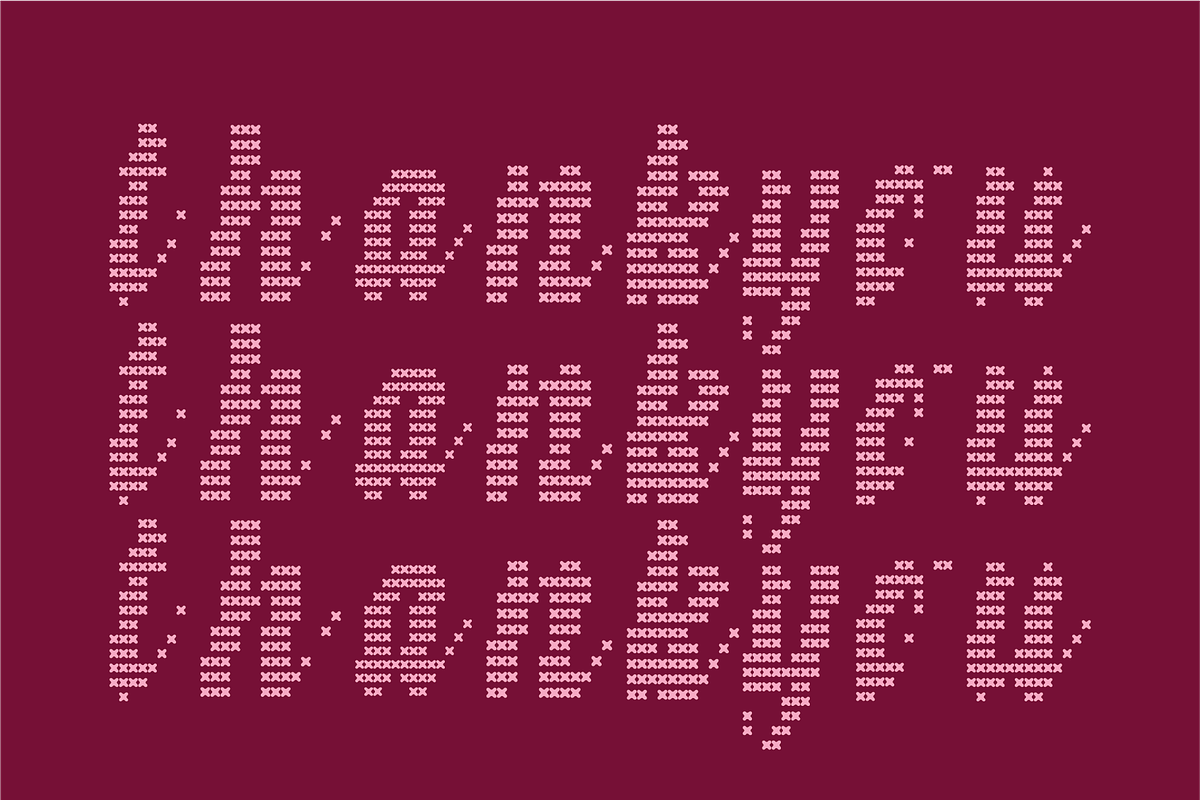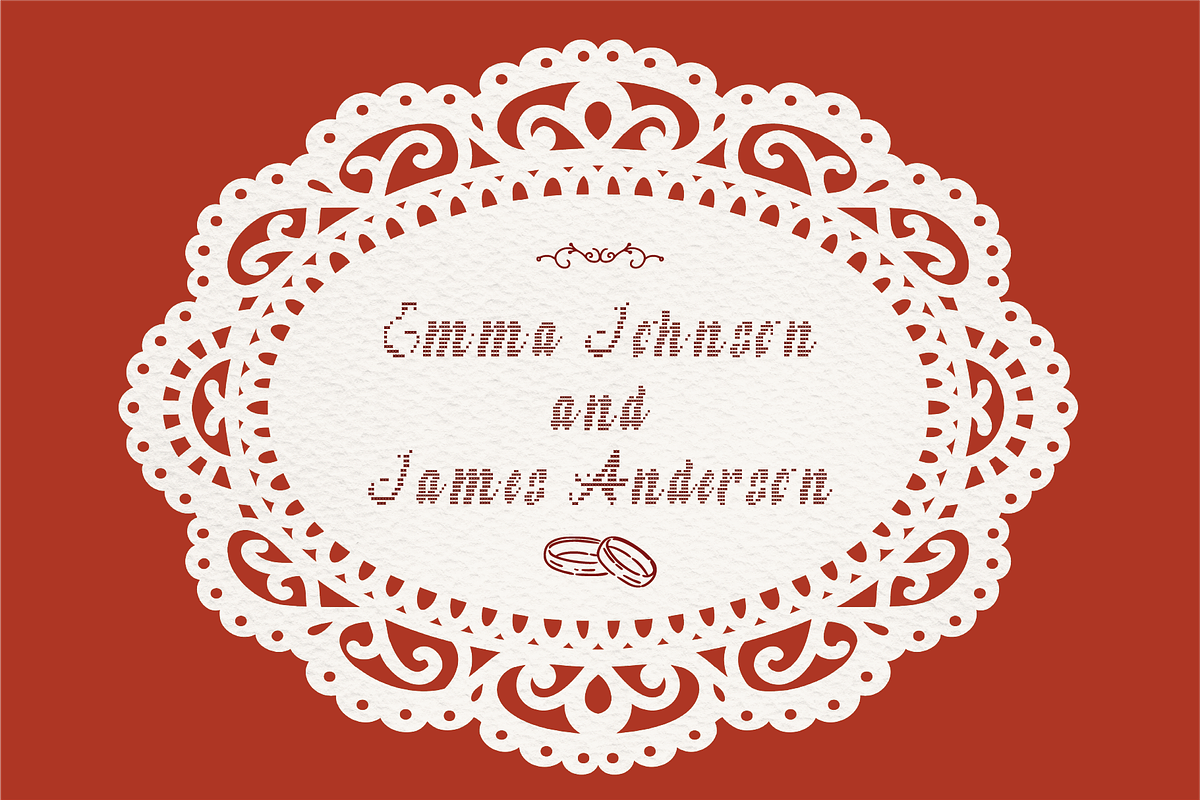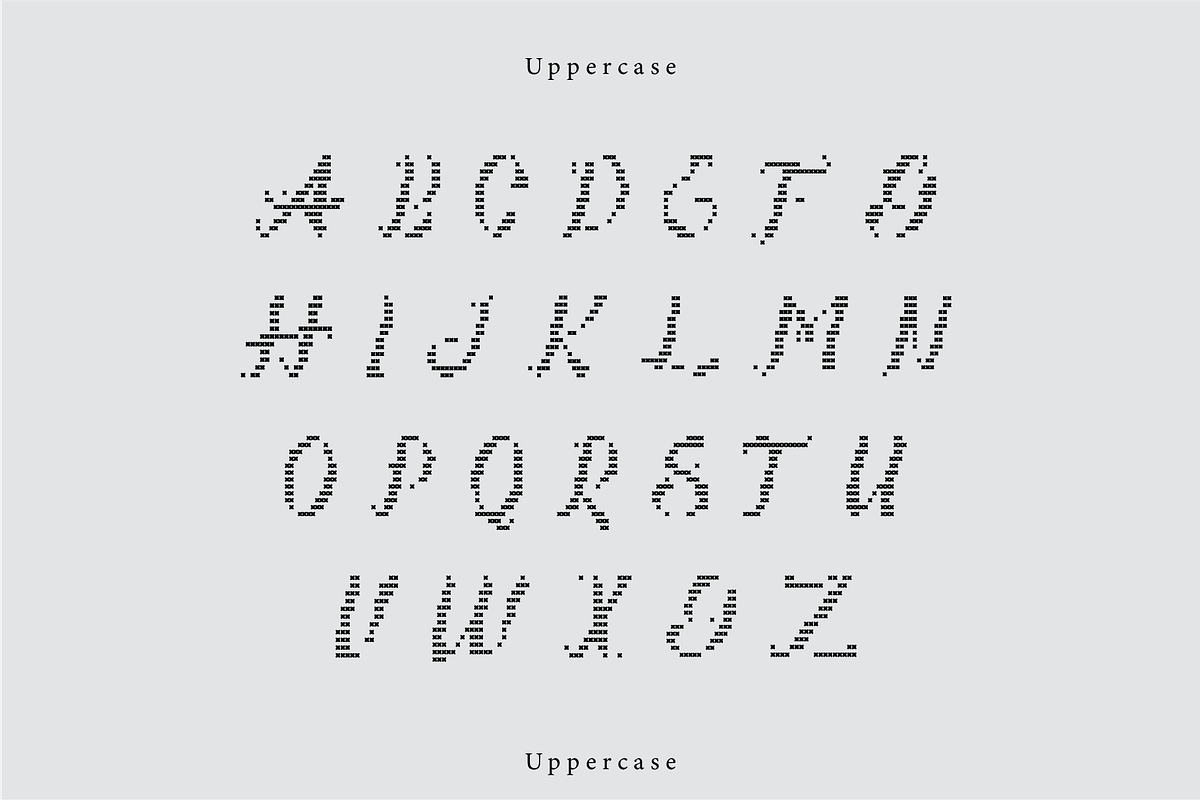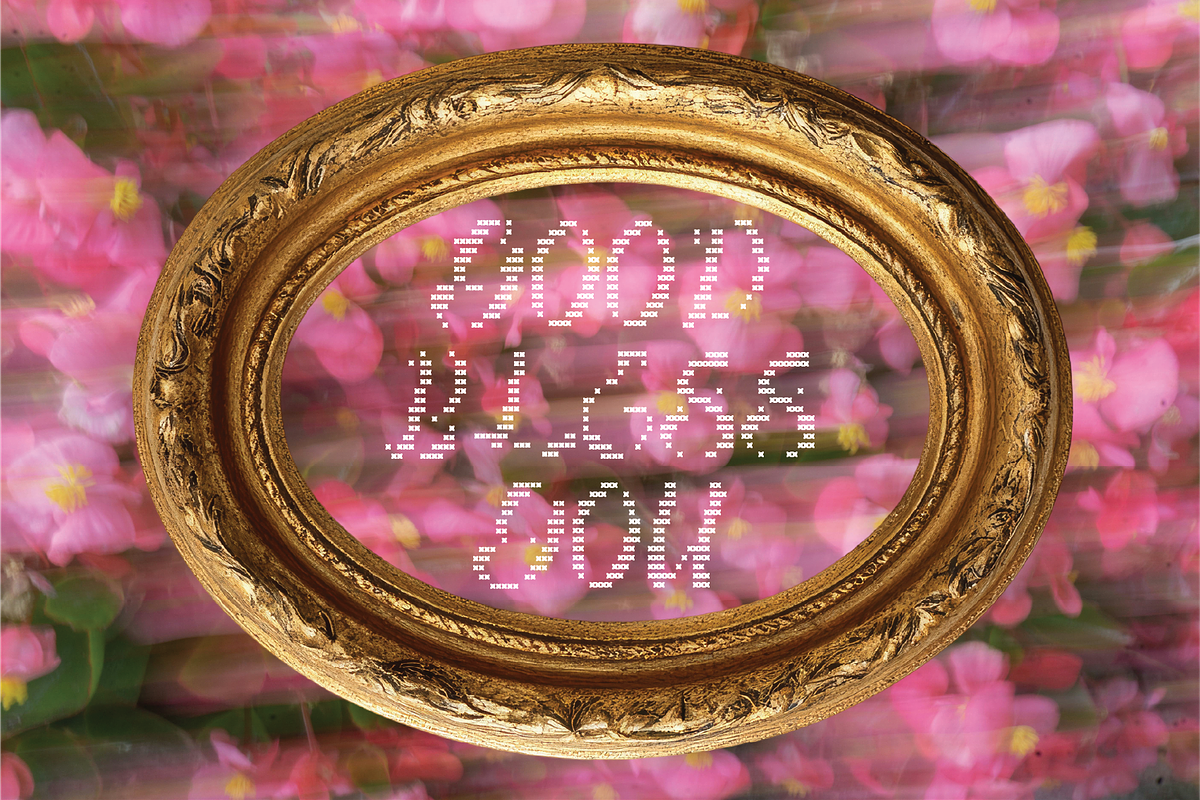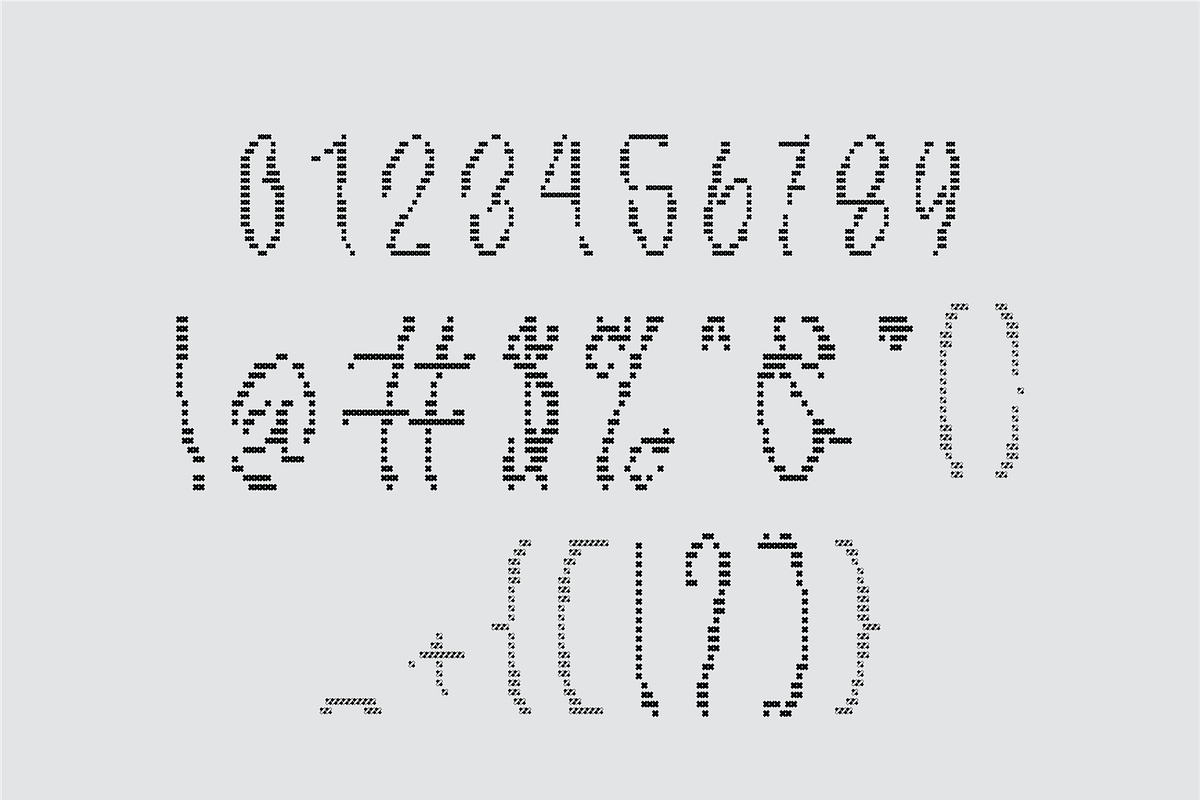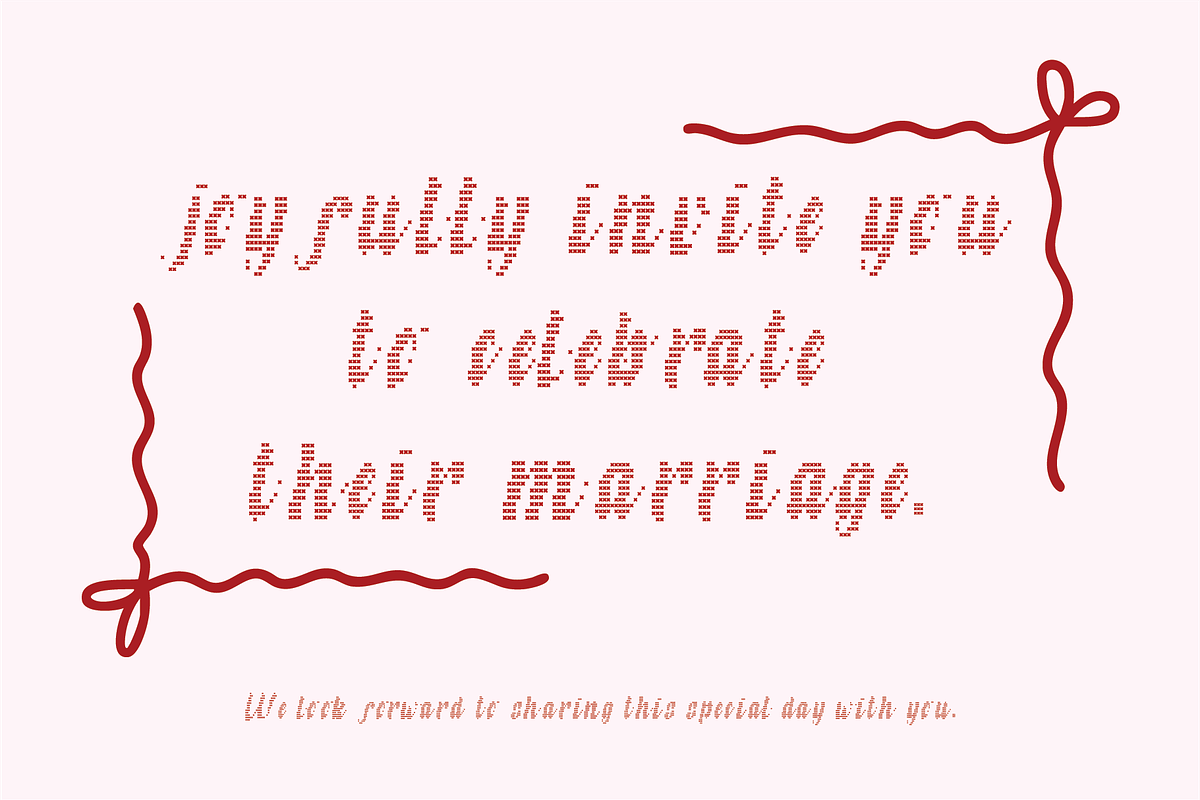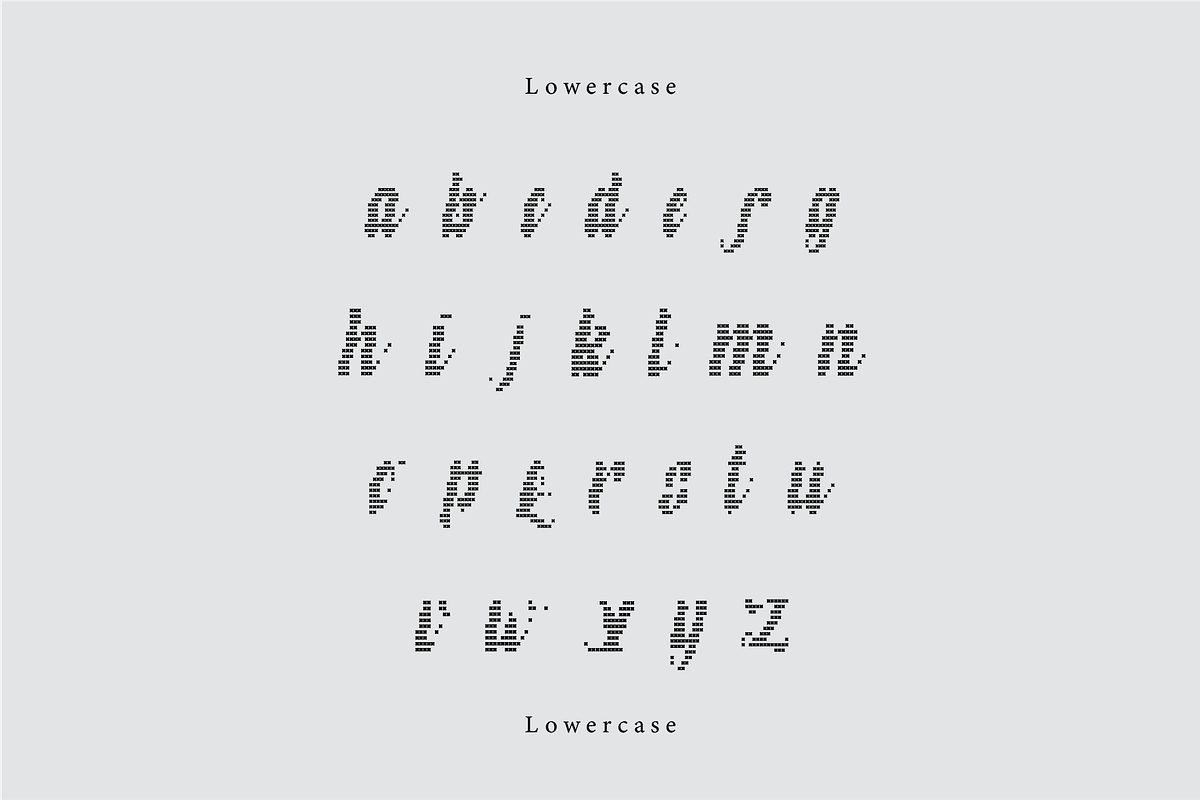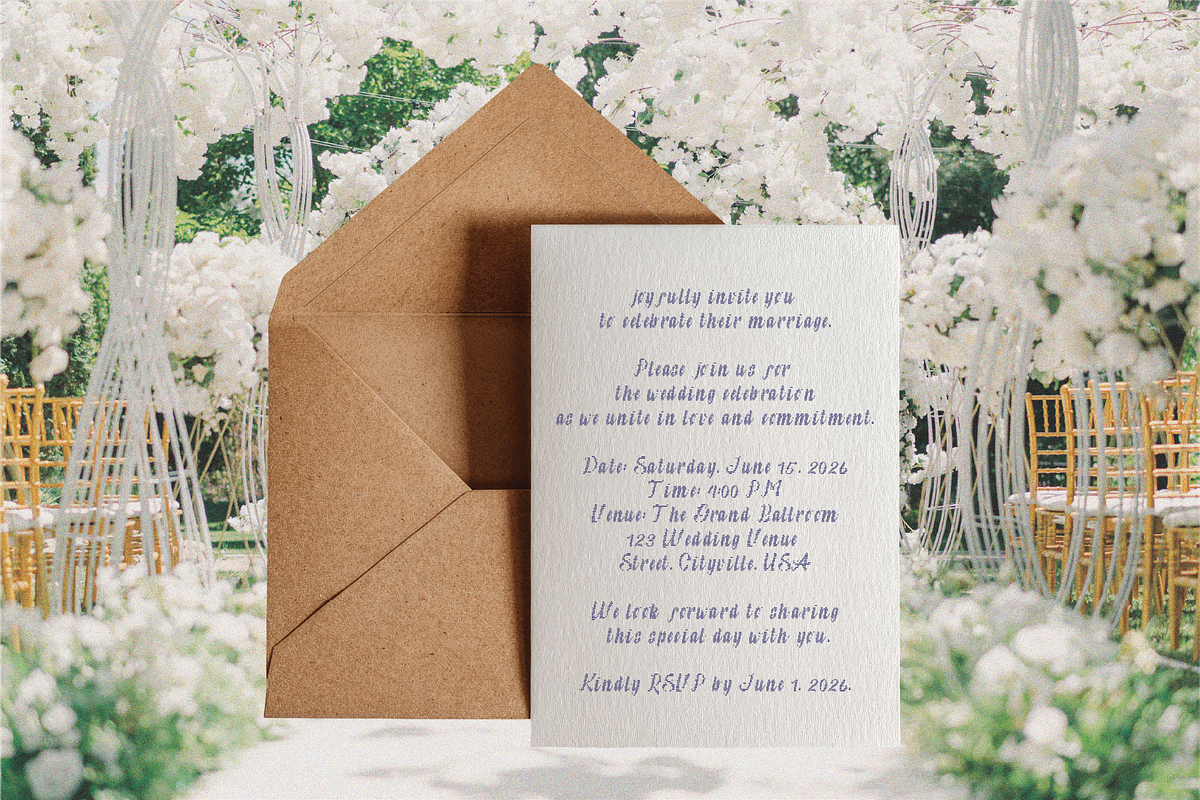
Silmona | A Embroidery Script Font
Silmona is a lovely embroidery script font with a soft girly charm and graceful elegance.
Numbers, marks and symbols